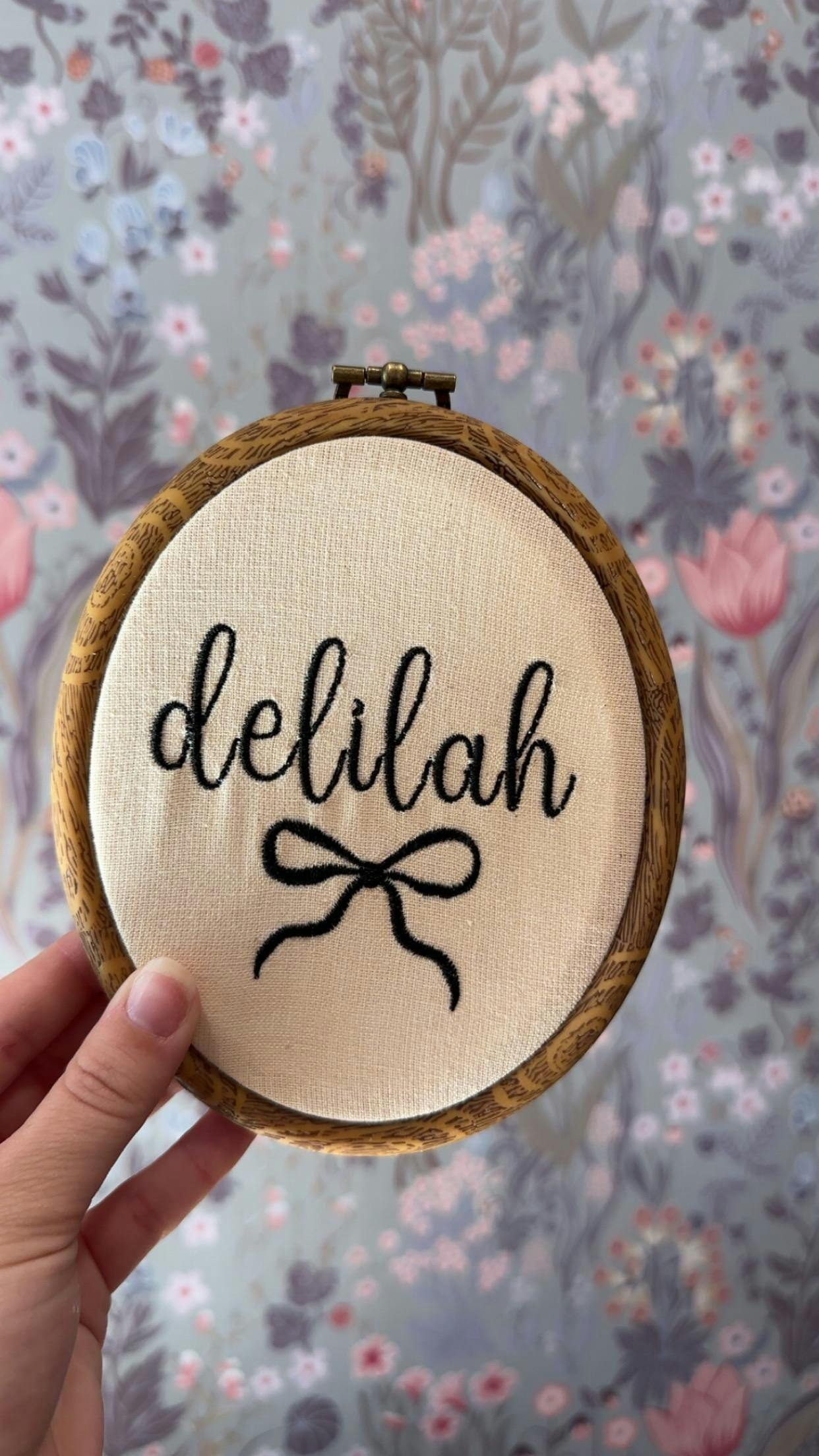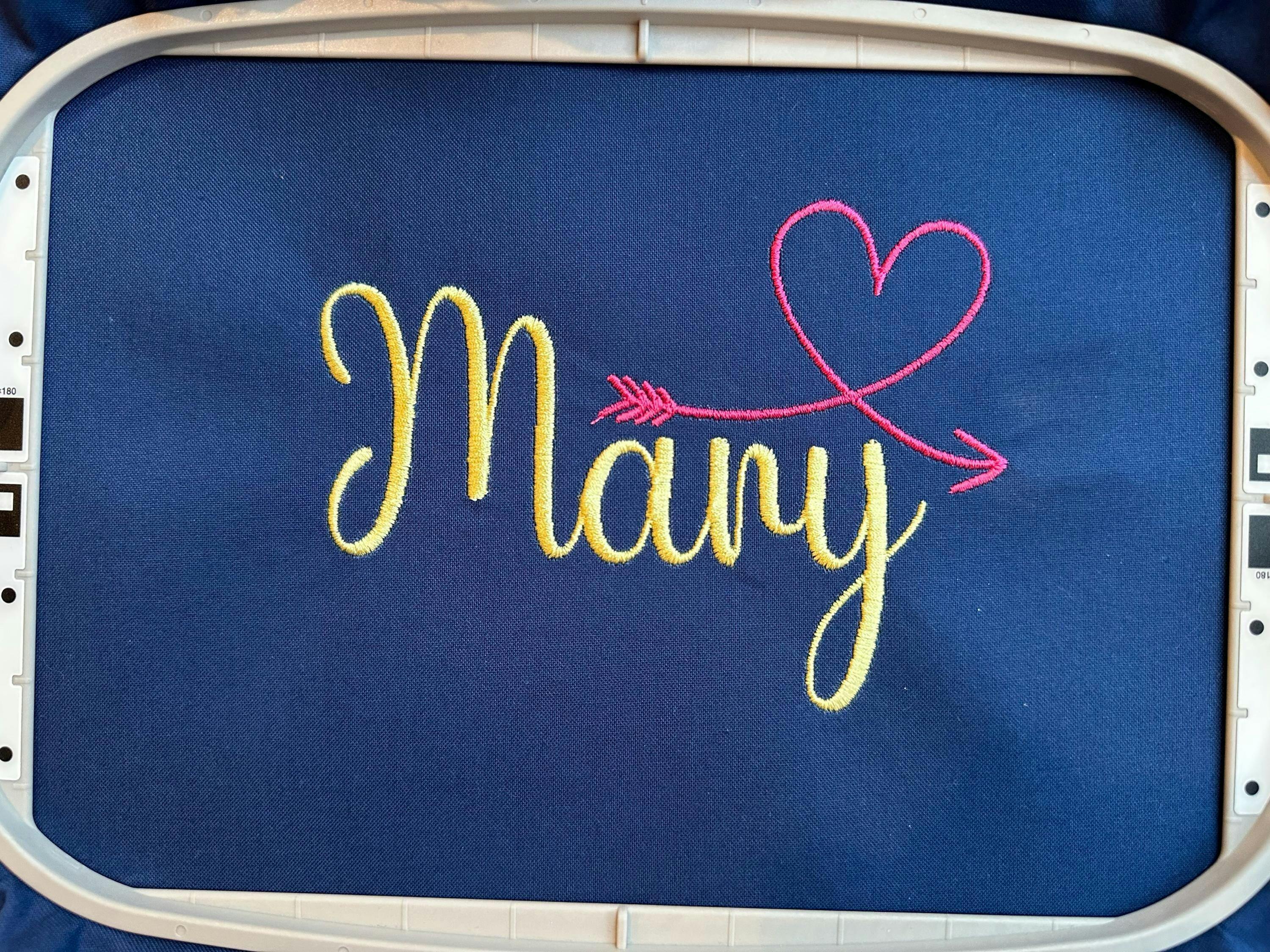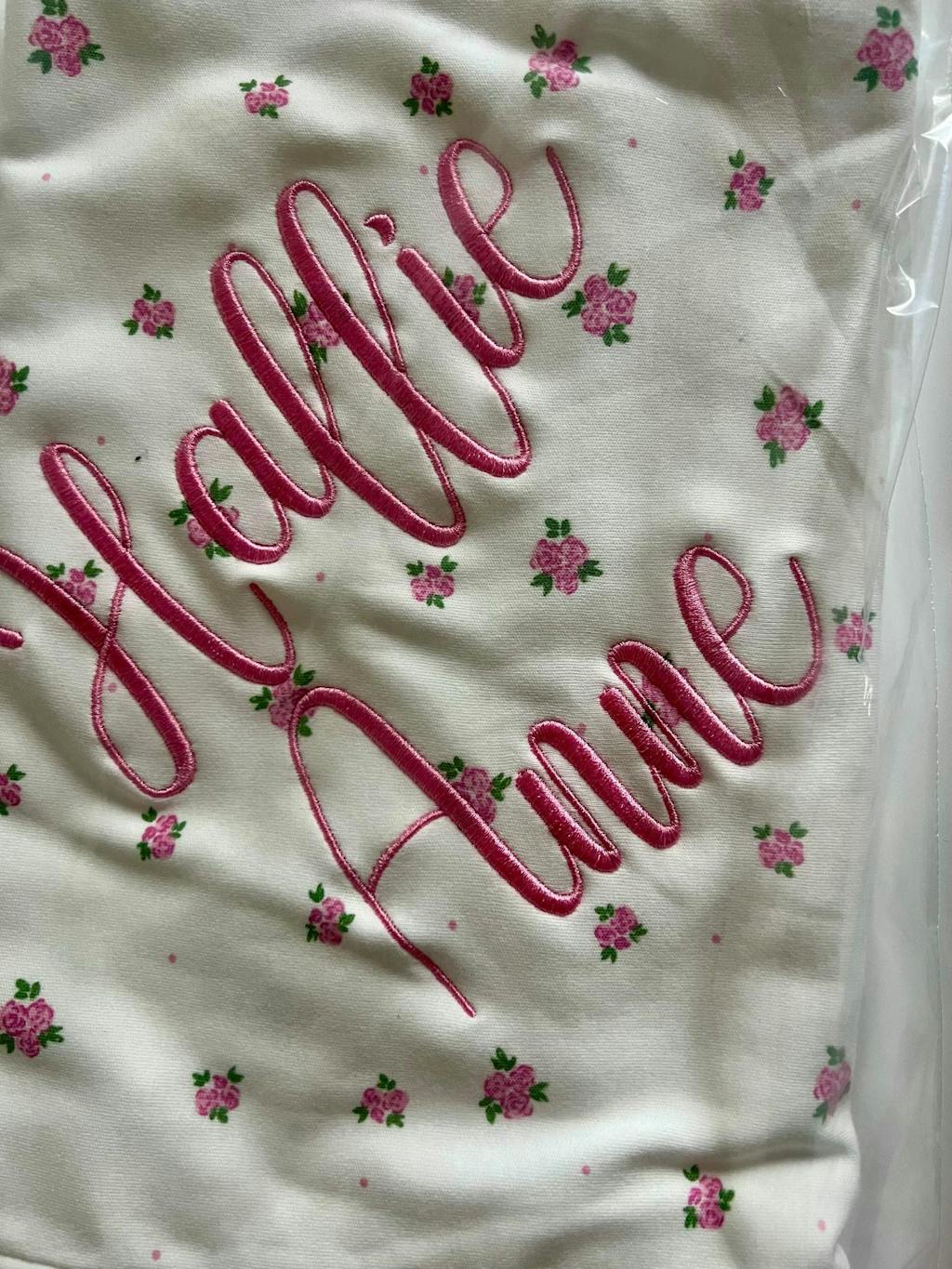
Photograph of Gatsby embroidery font
Photograph of Gatsby embroidery font alphabet
Gatsby Cursive Embroidery Font
Introducing Gatsby Cursive Embroidery Font, a cursive embroidery font that effortlessly blends time-honored elegance with the spirit of today's trends. With every curve and flourish, Gatsby adds a touch of charm and sophistication to your embroidery projects. Its cursive design beautifully enhances your creativity, allowing your textiles to not only speak, but to sing with a distinct, classy voice. Gatsby isn't just a font - it's an embroidery experience that leaves a lasting impression.